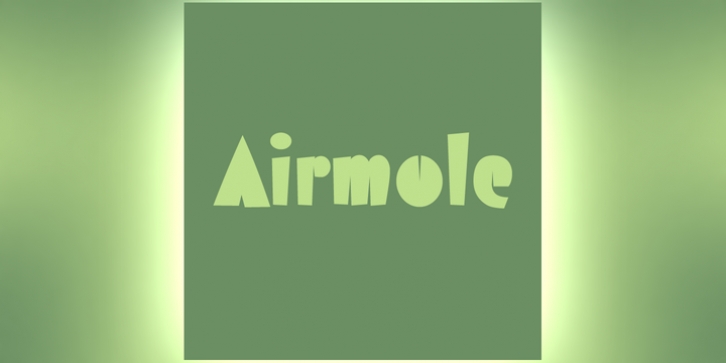
Ray Larabie
Typodermic
Airmole
drew its inspiration from an early 20th Century hand lettering guide. Featuring thin slits instead of holes.
Airmole
comes in regular, stripe, shaded and antique variations.